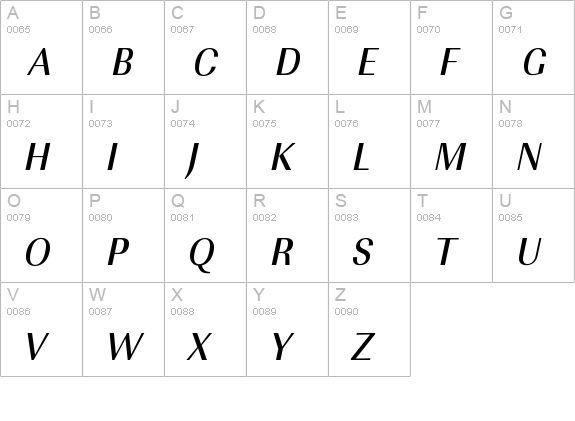
URWImperialTOTMedExtNar Oblique is a distinctive, italic variant in the URWImperialTOTMedExtNar typeface family \xE2\x80\x94 well suited to design and typography projects.
URWImperialTOTMedExtNar Oblique font is a sophisticated and elegant typeface that brings a touch of class to any design project. Its sleek and modern design makes it perfect for a wide range of applications, from branding to editorial design. The slanted style of the font adds a dynamic and stylish element to your text. The best part about URWImperialTOTMedExtNar Oblique font is that it is completely free to download at FontsMarket.com. This means you can enhance your projects with this high-quality typeface without any cost. Whether you're working on a personal project or a professional design, URWImperialTOTMedExtNar Oblique font is a versatile choice that will elevate your work to the next level. Download it today and add a touch of sophistication to your designs.